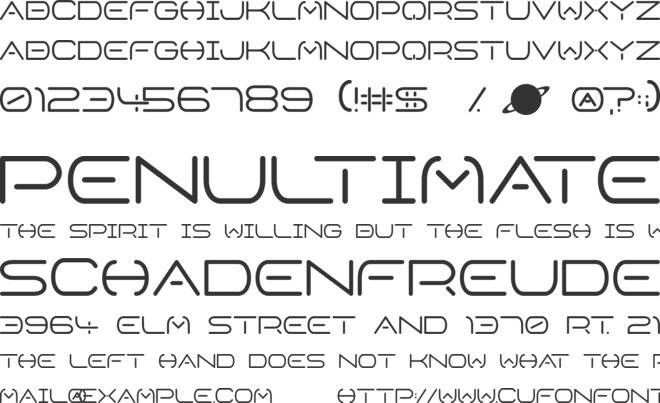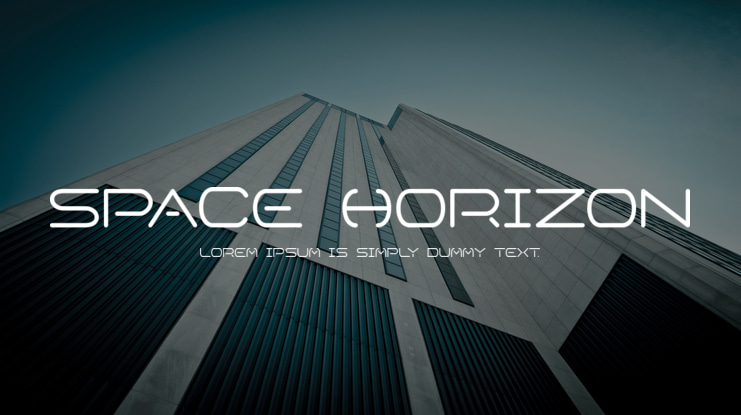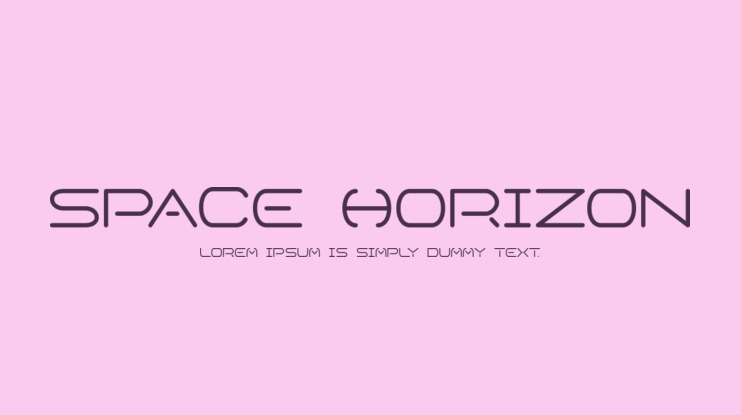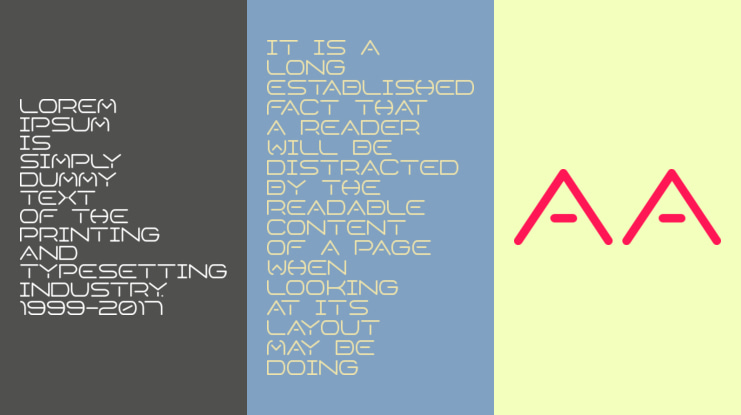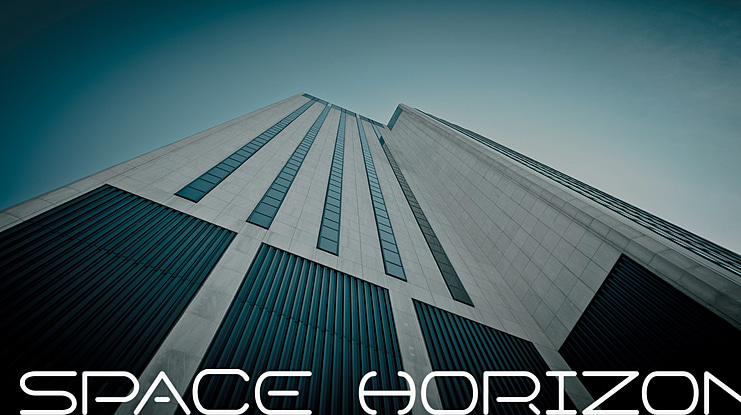
Space Horizon Font
Write as Space*Horizon, the asterisk can be used as a decorative character.
This font "Space Horizon" is created by Francis Fonye. Co-member of Bitty/Brixdee on http://www.dafont.com/profile.php?user=764521